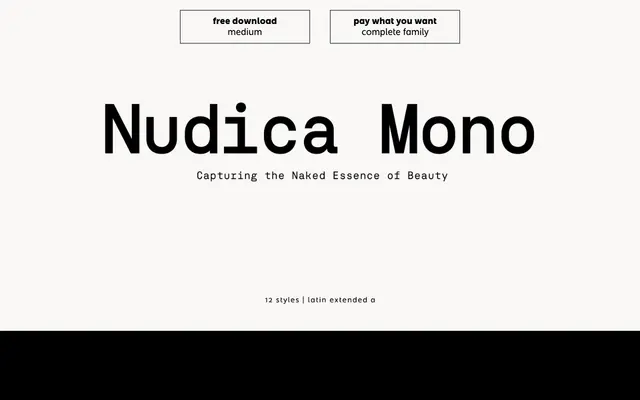
Nudica Mono
atipo foundry · Raul Garcia del Pomar, Ismael Gonzalez (atipo) · 2020
The fixed-width companion to Nudica, a neo-grotesque mono in six weights with italics for code, data and tabular work.
A monospaced neo-grotesque by atipo that pairs with the proportional Nudica. Twelve styles run across six weights from Thin to Bold with matching italics, sharing skeleton and rhythm with the proportional family while holding a fixed advance for code editors, data tables and console output. Carries fractions, superiors and ordinals so numeric content stays consistent with the wider system. Atipo offer Medium as a free download with the rest of the family on a pay what you want basis.
Atipo present Nudica Mono as the fixed-width companion to Nudica, sharing skeleton and weight set so prose, data and code can sit in the same system.